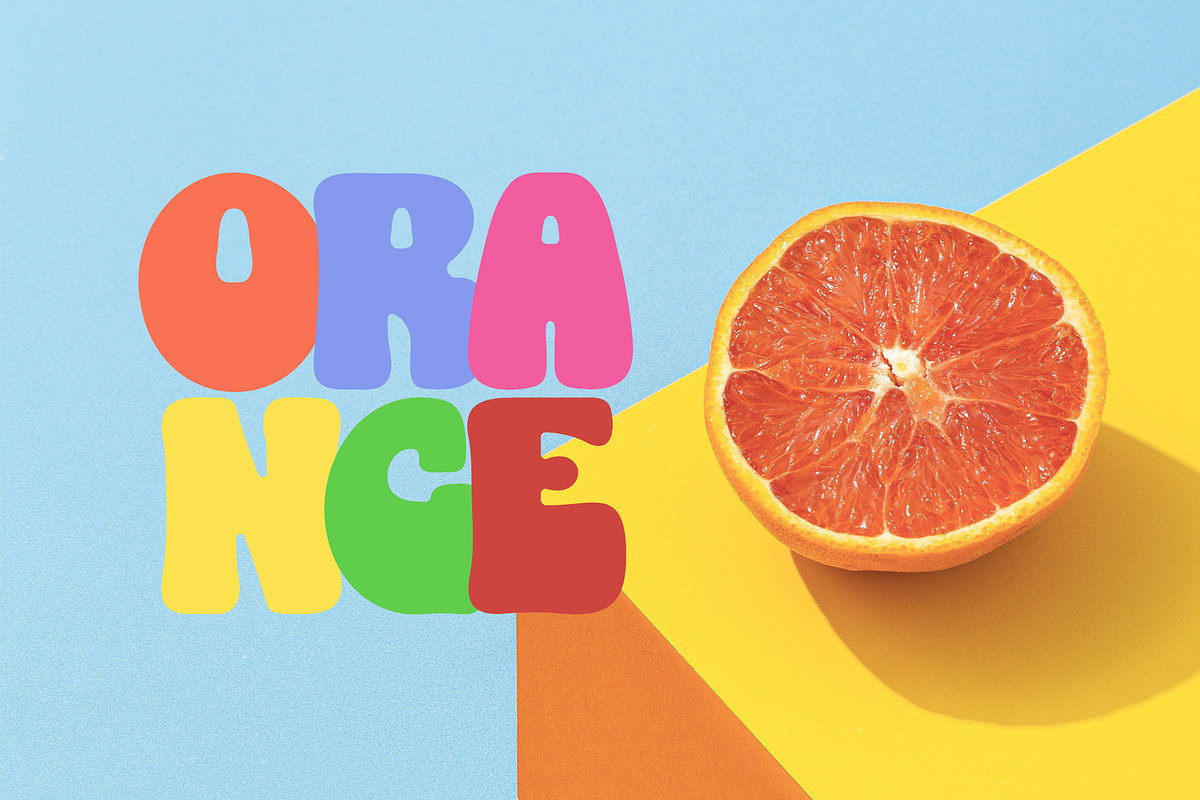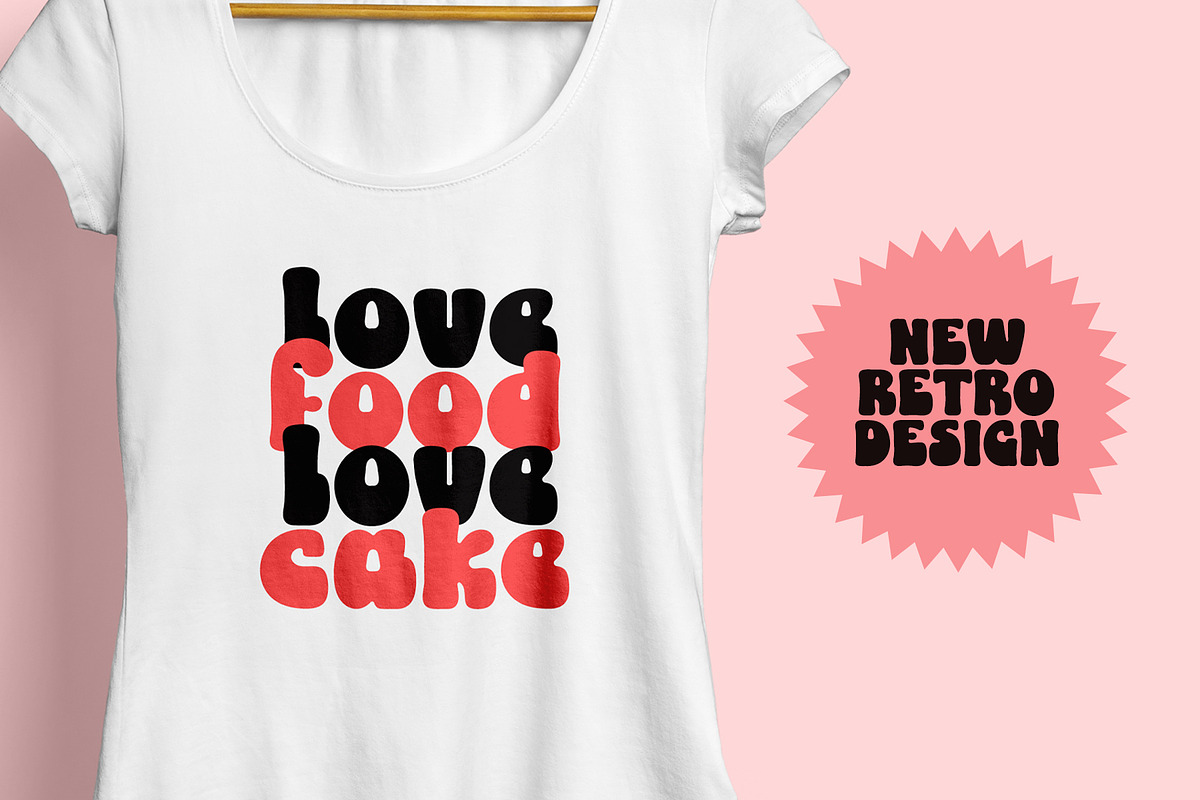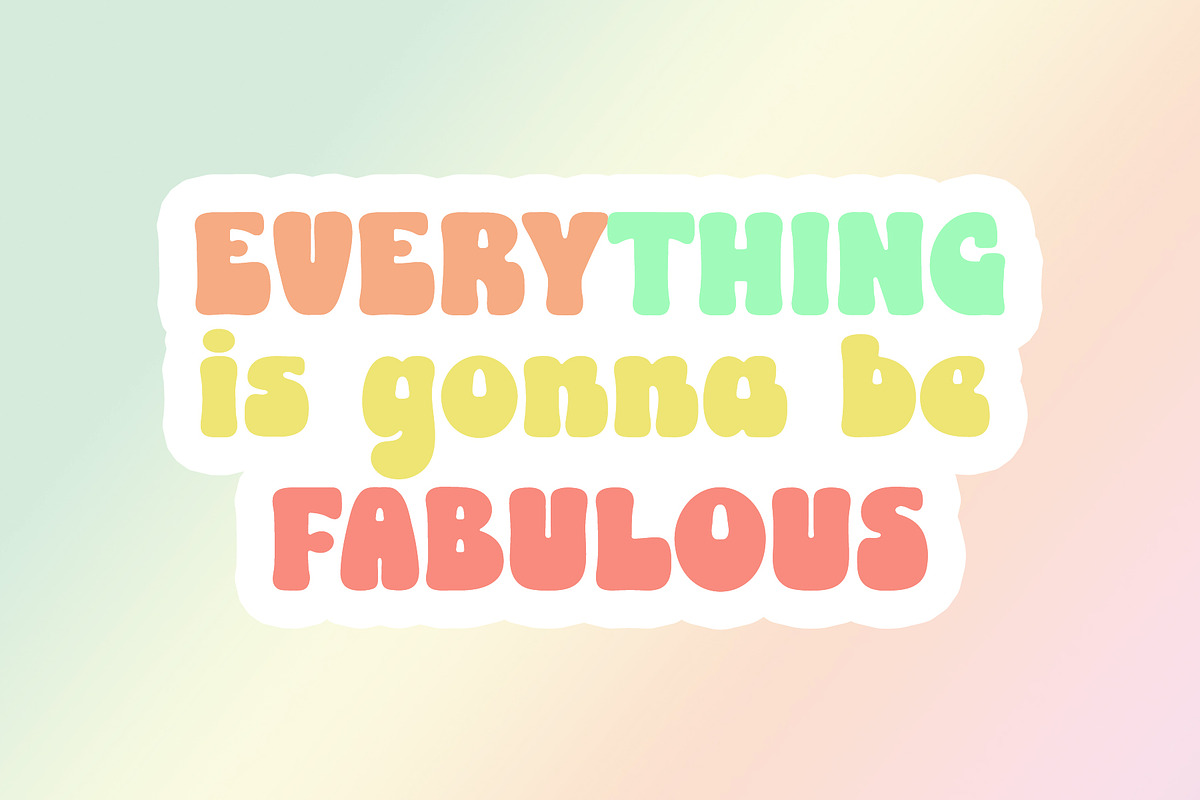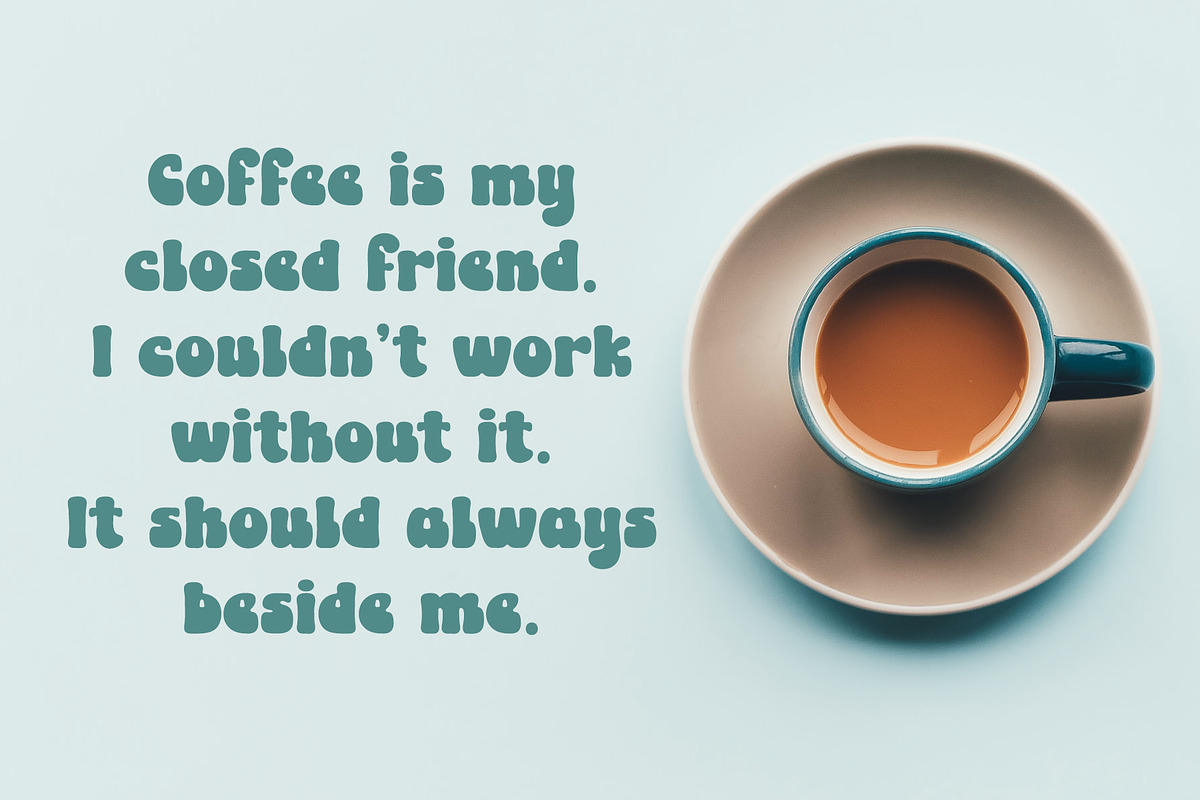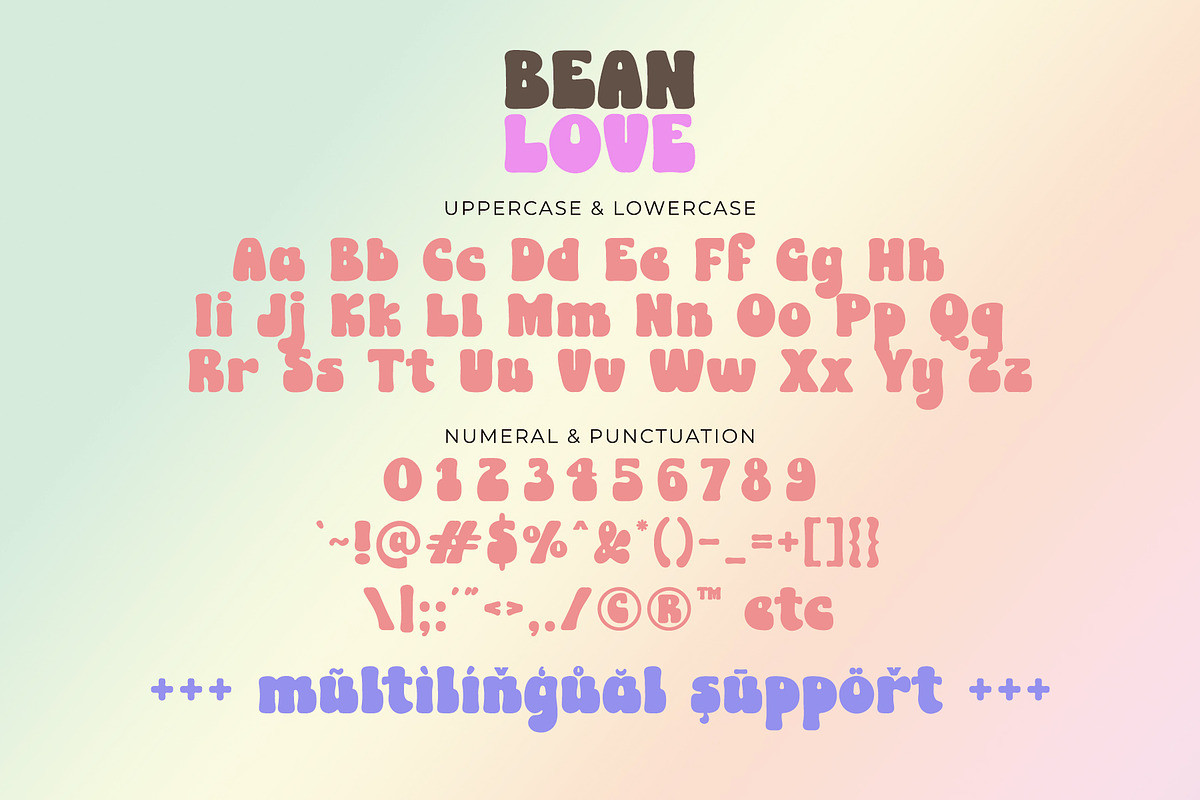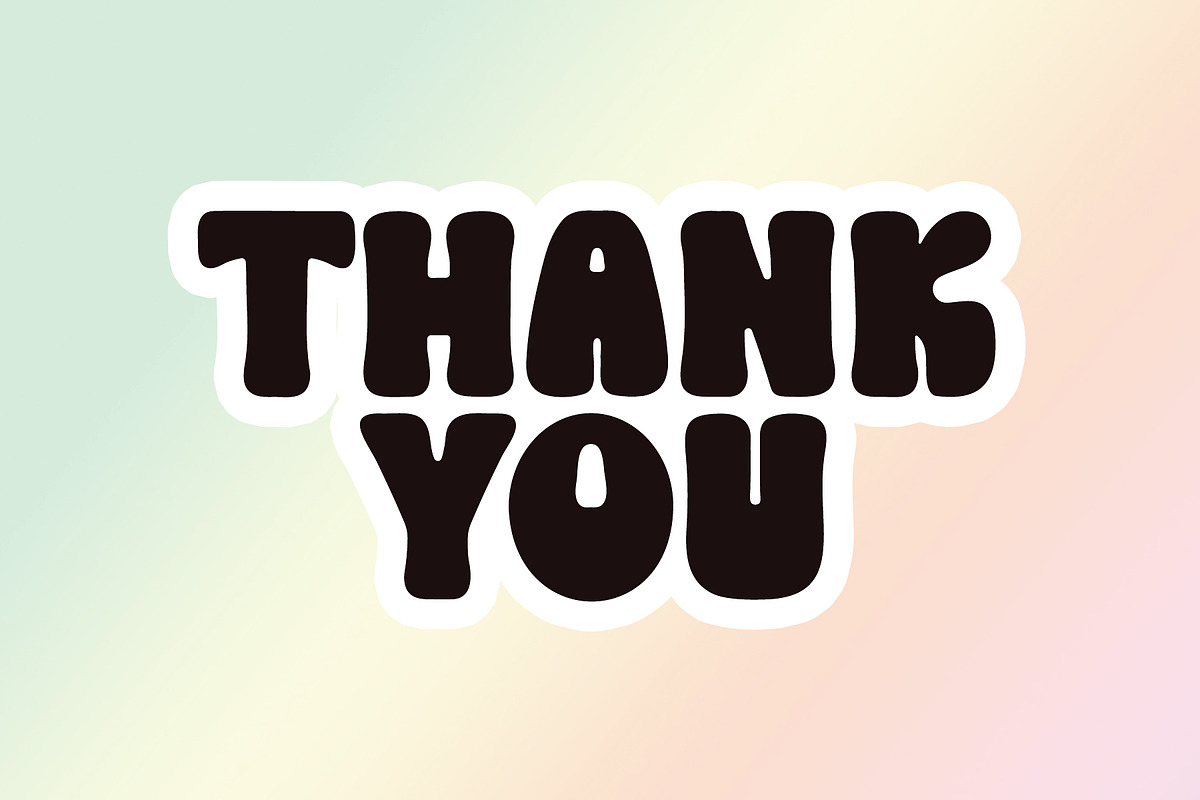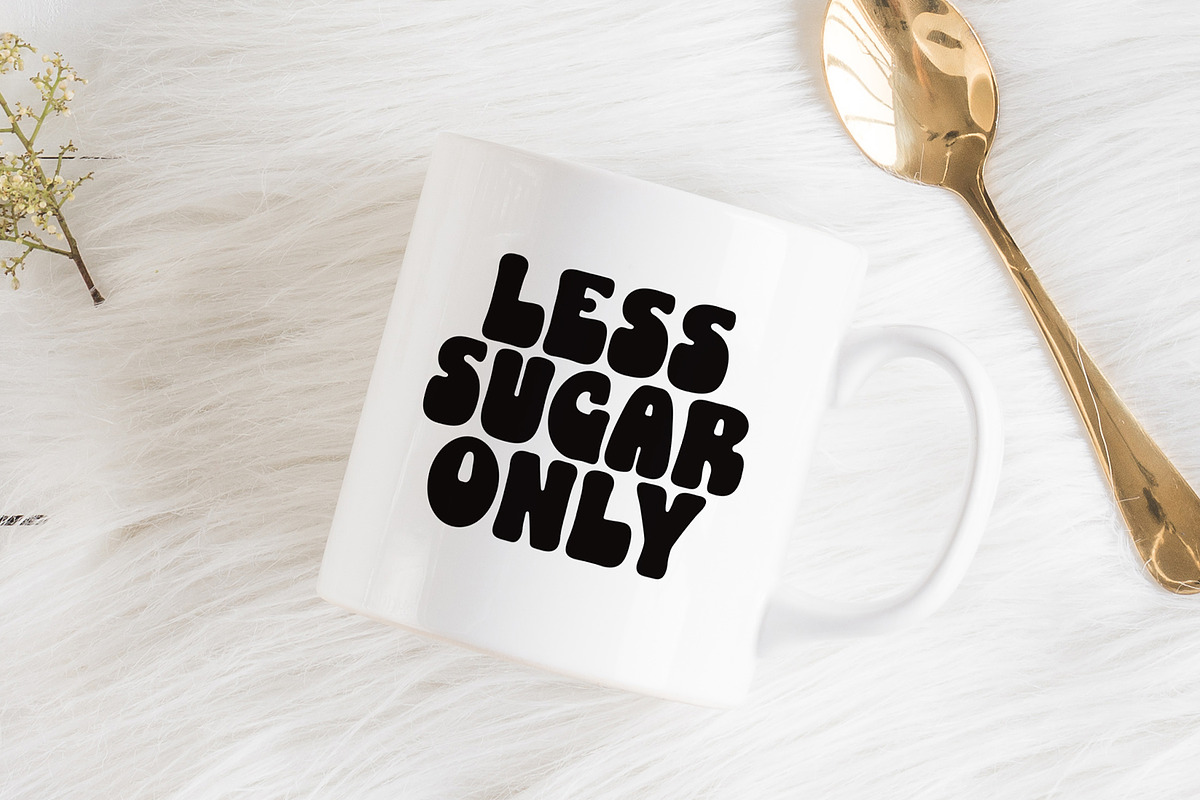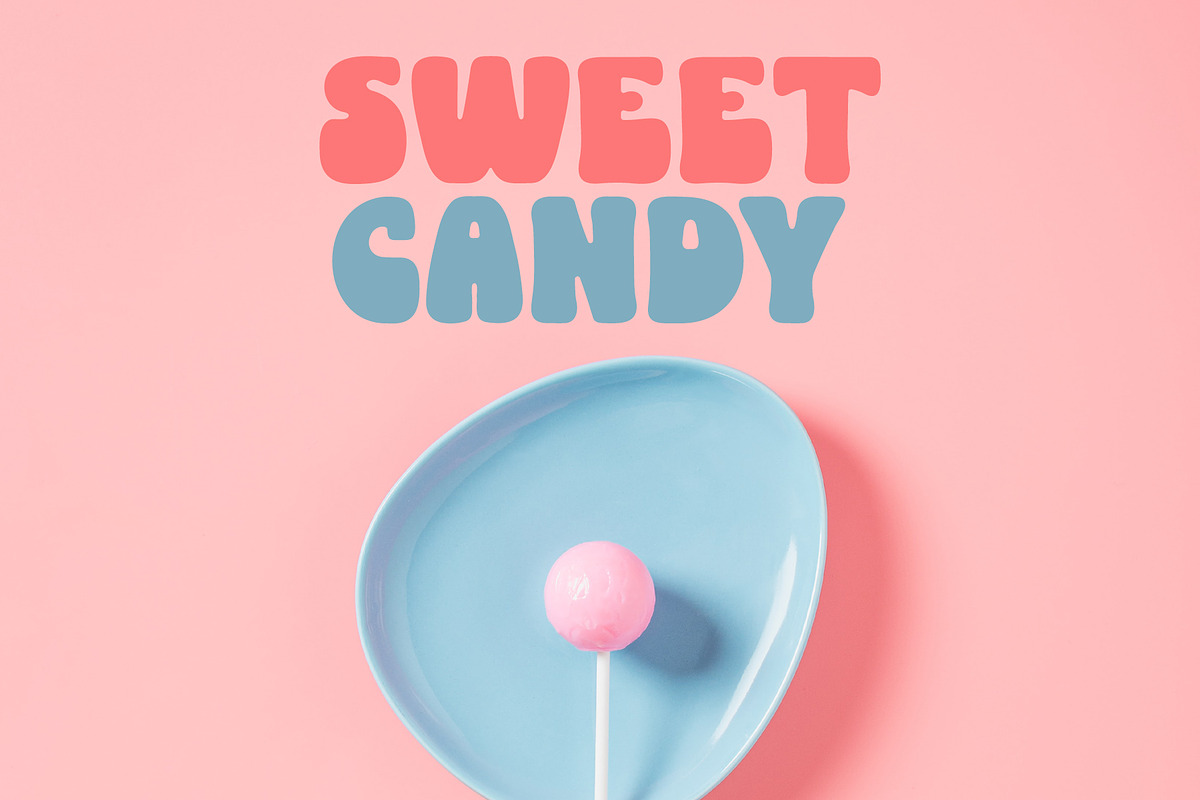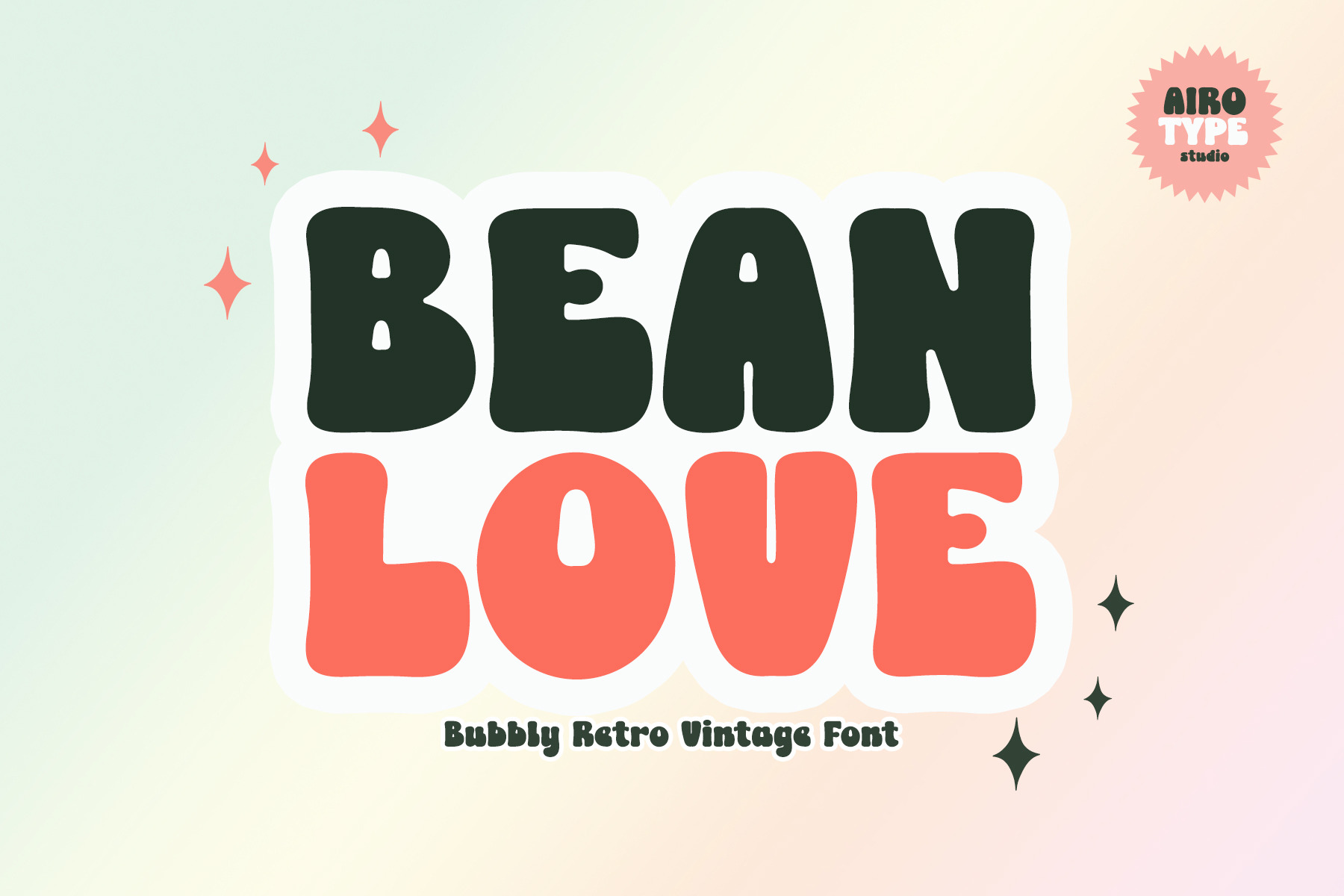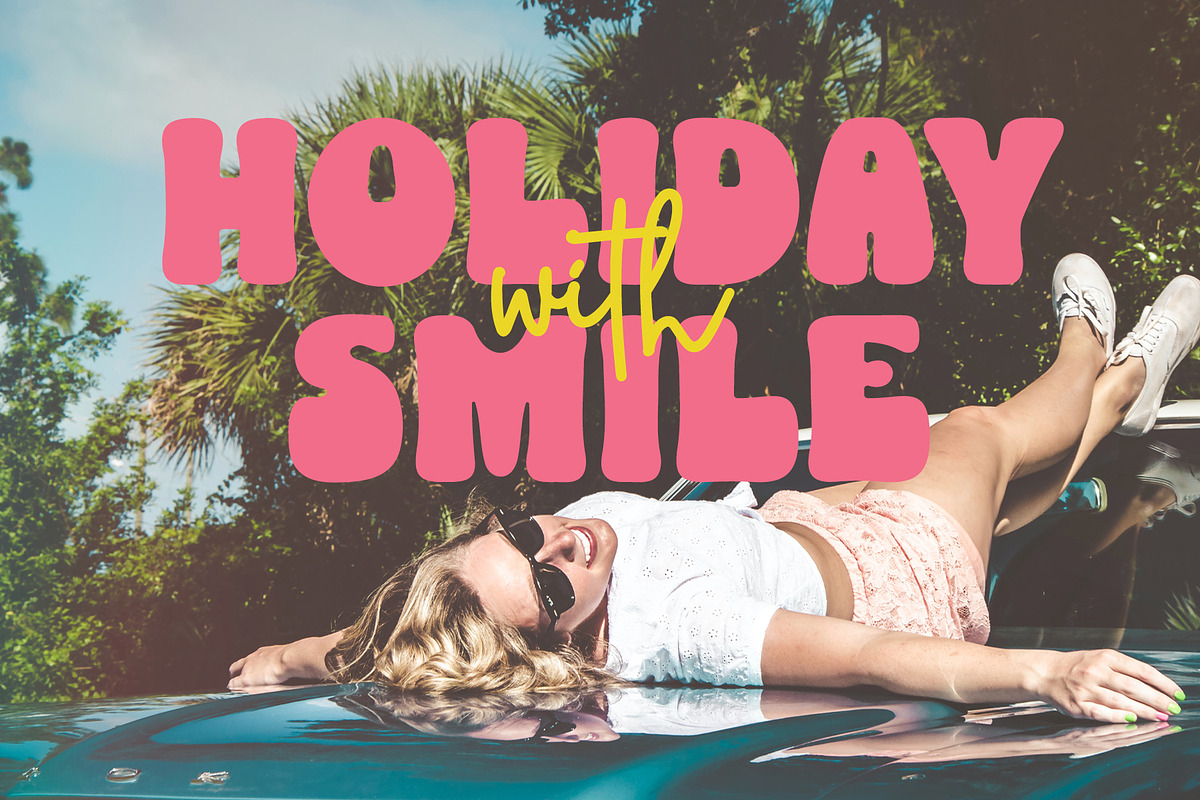
Bean Love - Bold Vintage Retro Font
Bean Love is bold and fun display retro font.
This font is perfect for any projects, especially with vintage style, such as logo, crafting, wedding invitation, branding, sticker, sublimation, quotes, and many more.
- Most Multilingual Accent